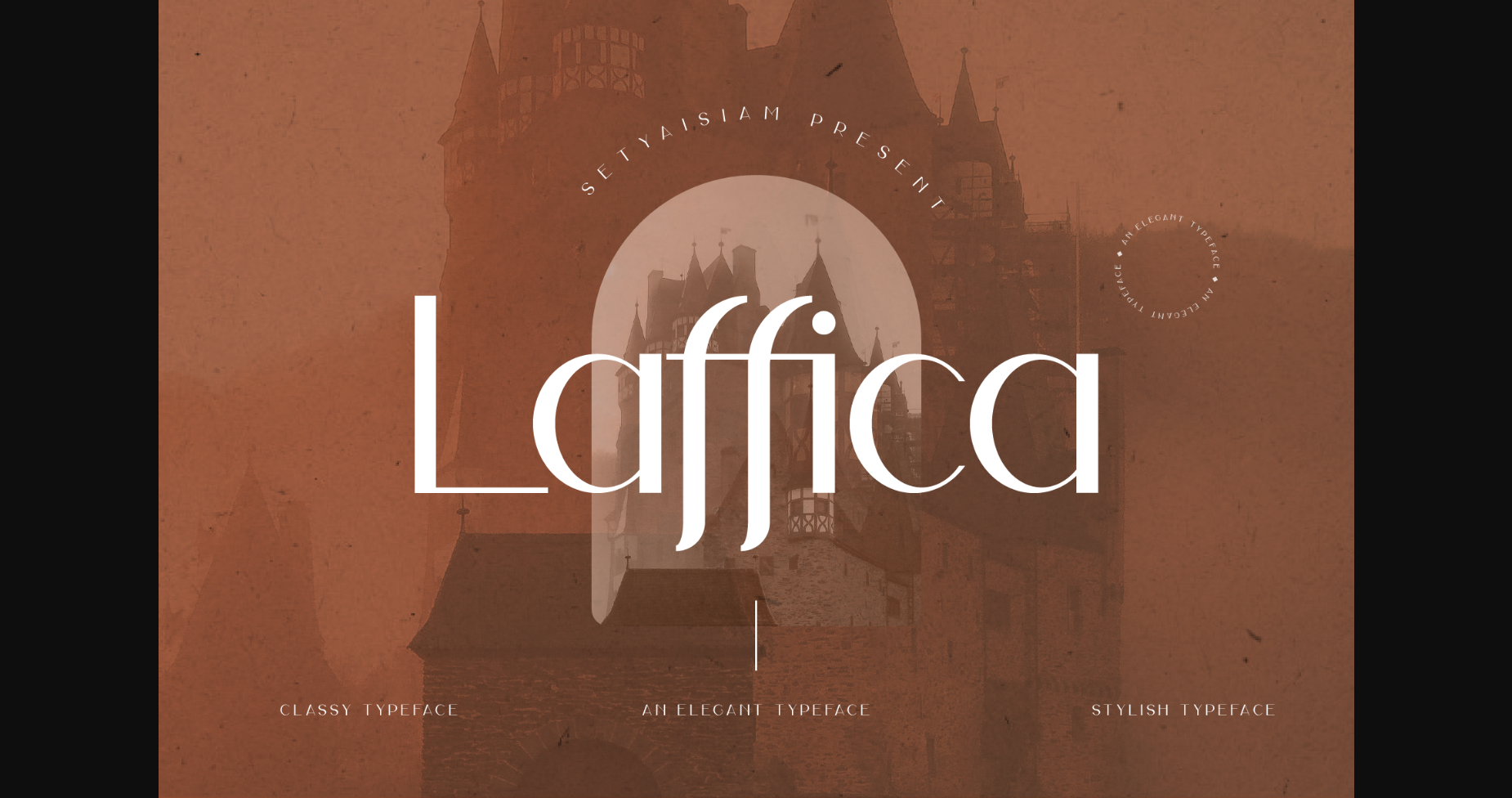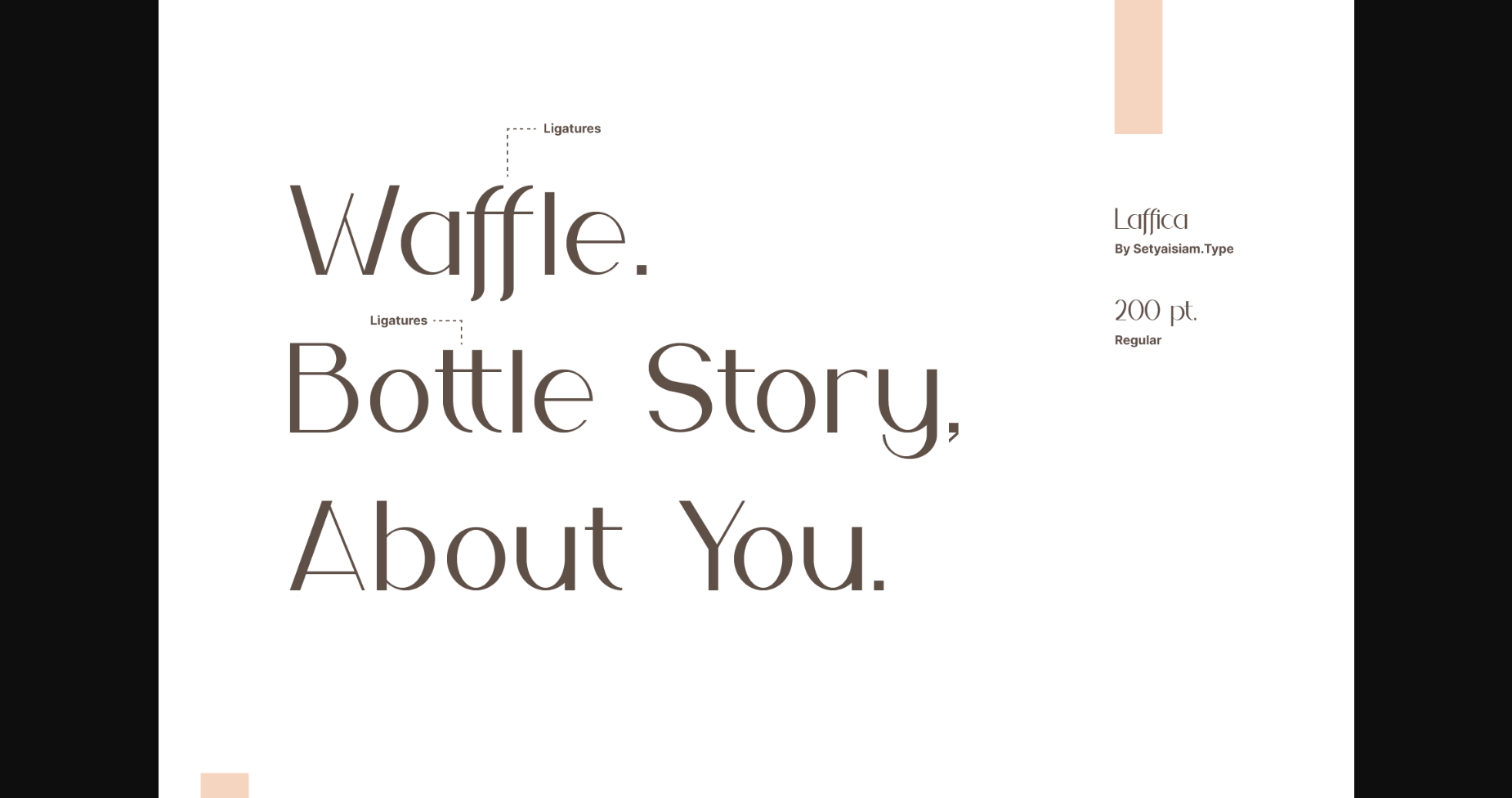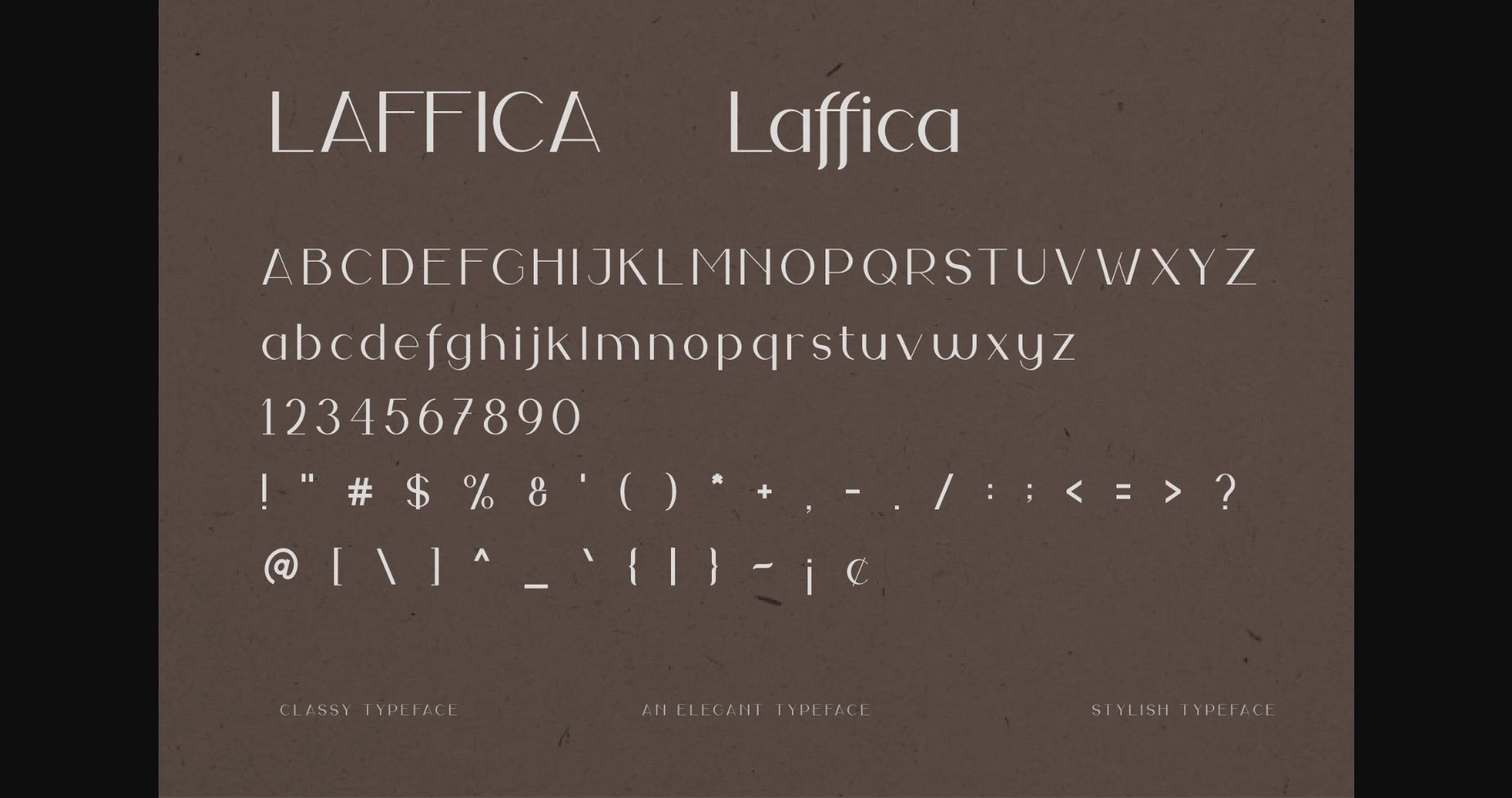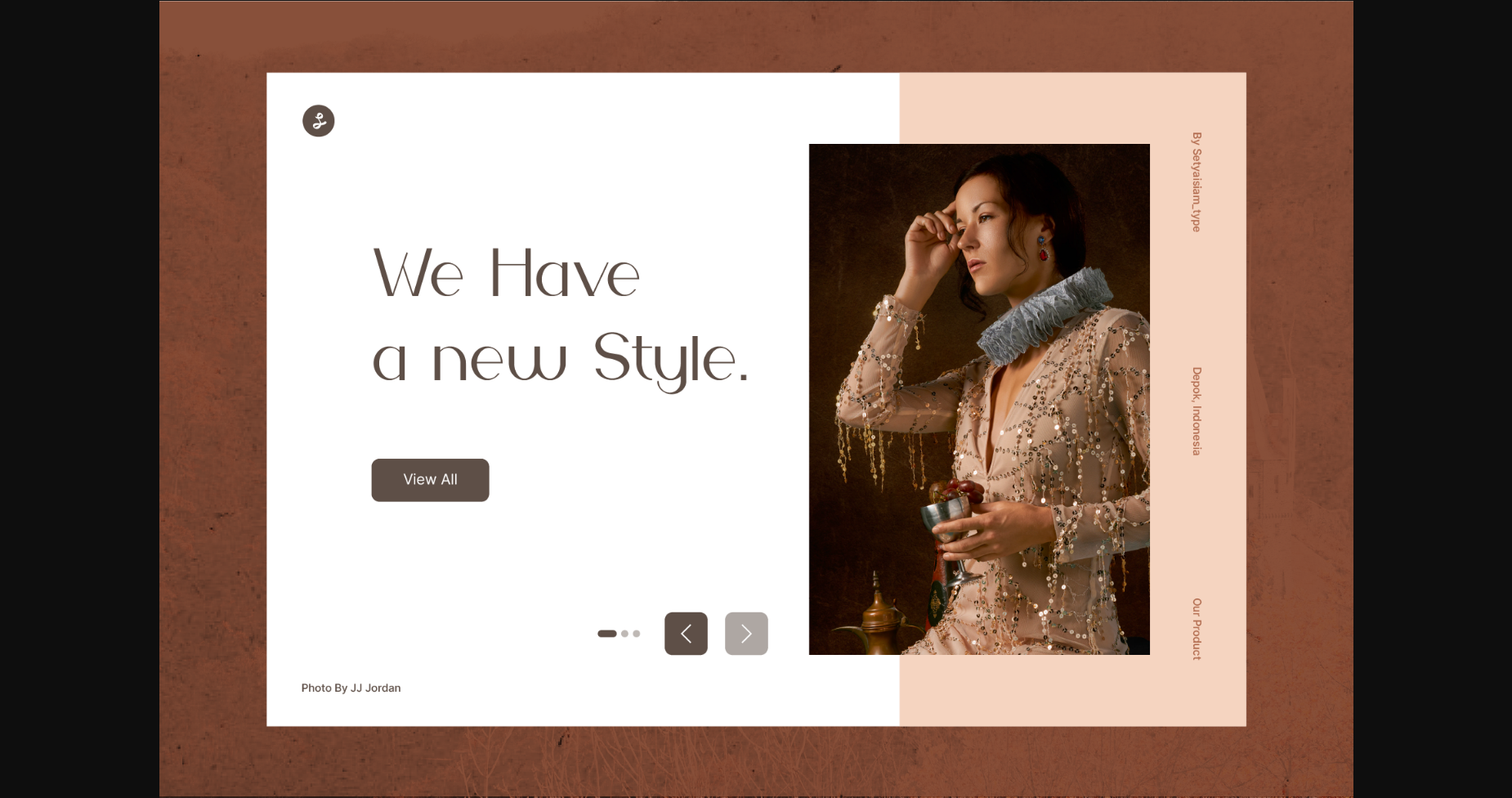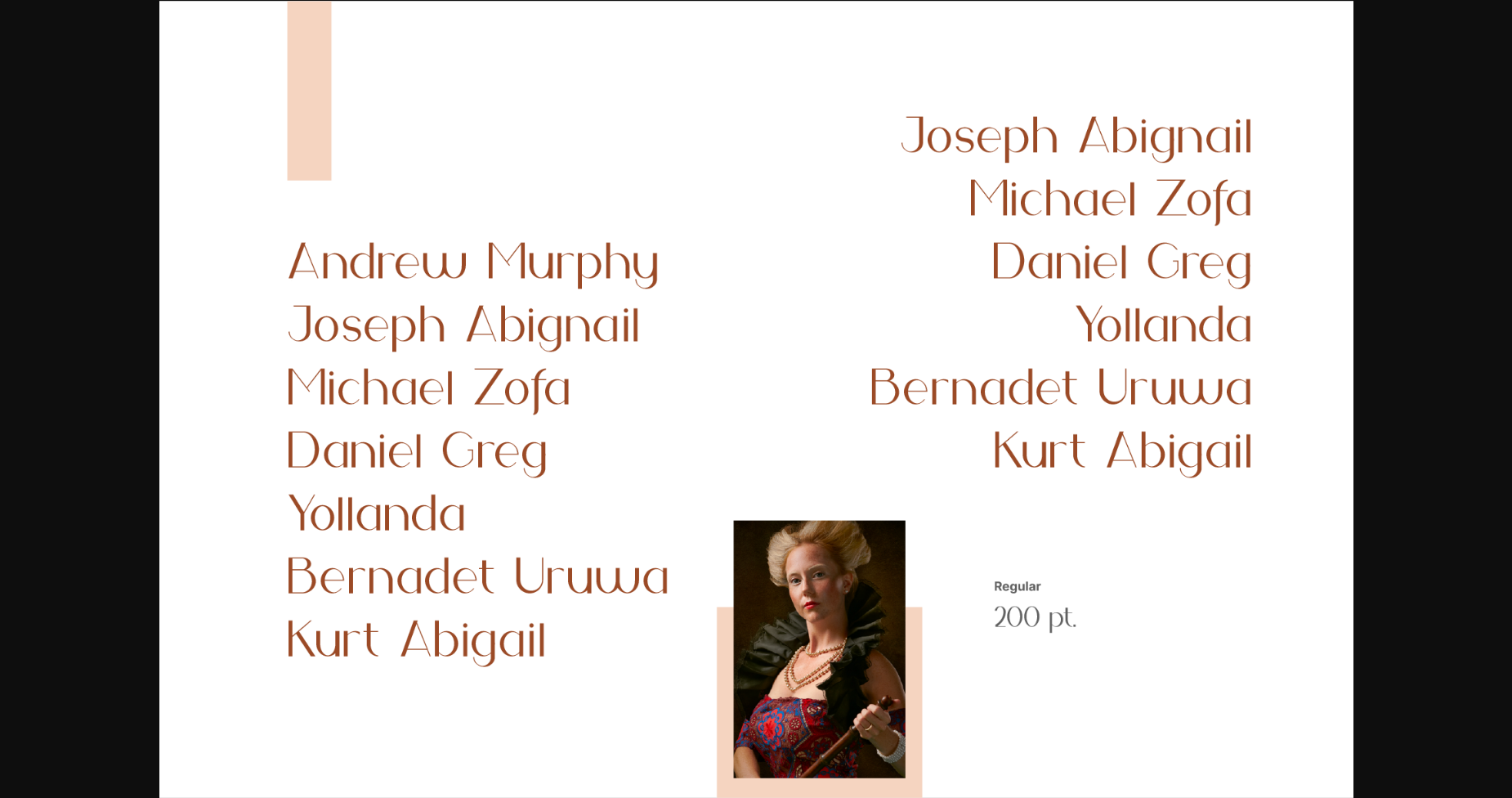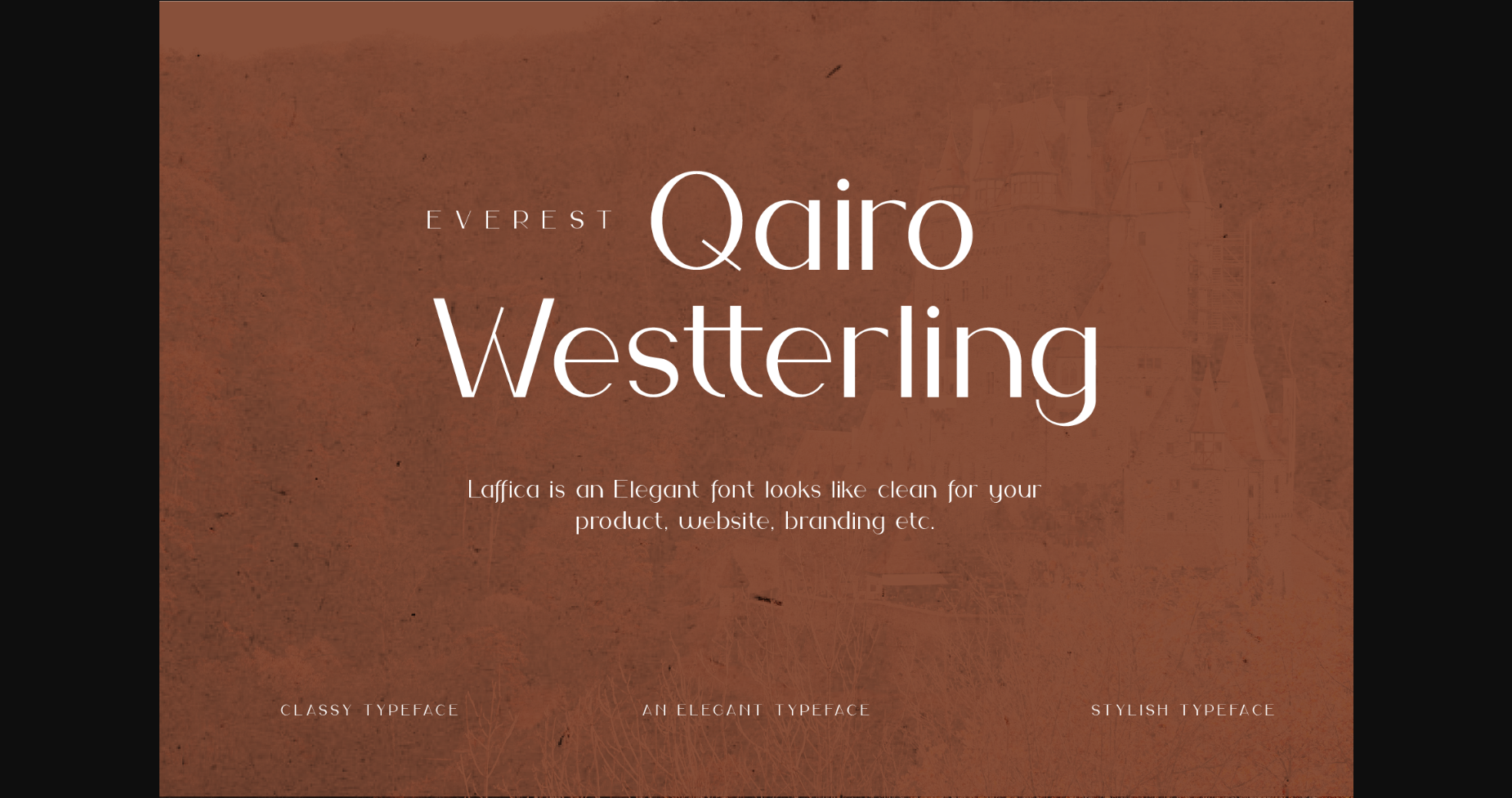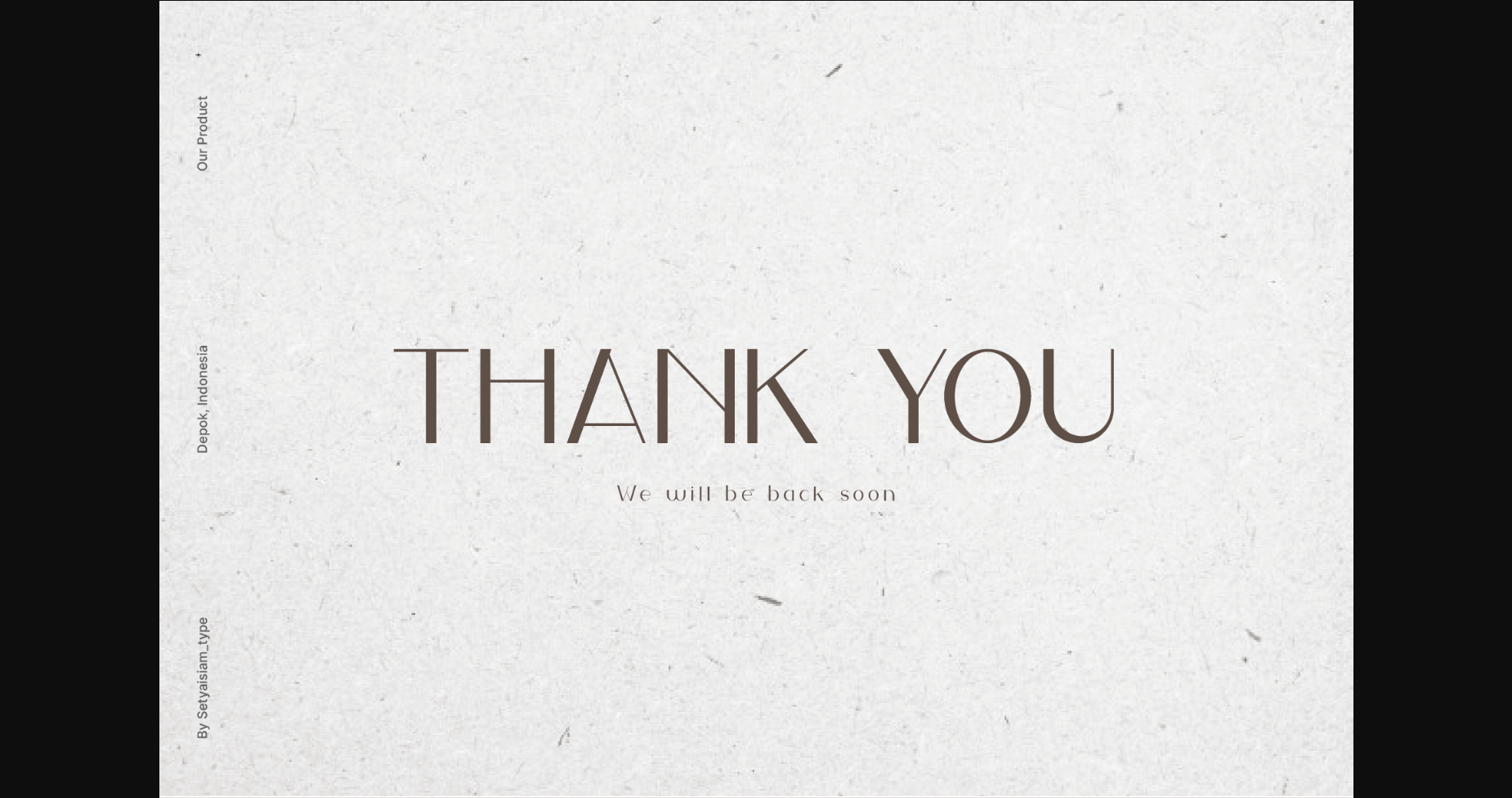
Laffica Font
About Laffica Font
Laffica is a delicate and elegant sans serif font. Suitable to a wide variety of designs due to its neat and simple style, this font has the potential to become your favorite go-to font, no matter the occasion!